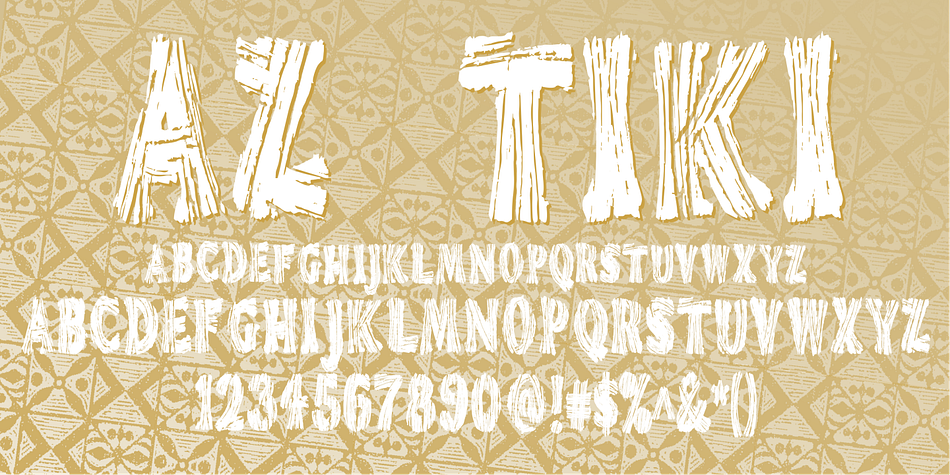
AZ Tiki is a grunge font published by Artist of Design.
AZ Tiki font was inspired from Polynesian pop art Ephemera of the 1950’s
This font utilizes an “old look” to the line work which is designed to have a “worn feel” to it.
Ideal for use as headline or sub-head text in you design.